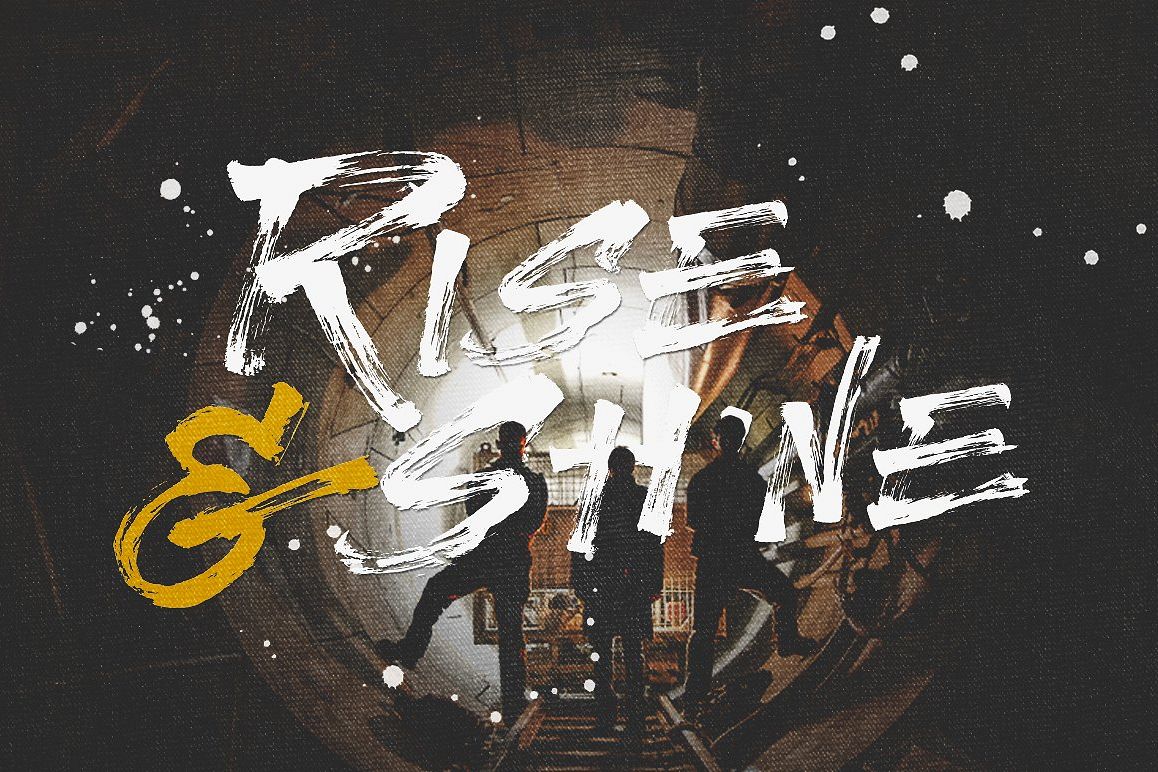
Rise & Shine
Riseandshine-Bold
Rise & shine Typeface was inspired from ink & tints manual handdrawn brush to make a natural messy, make a stylish design, help to good display, uses for labeling, clothing, movie sceen, film title, gigs, or cover album,